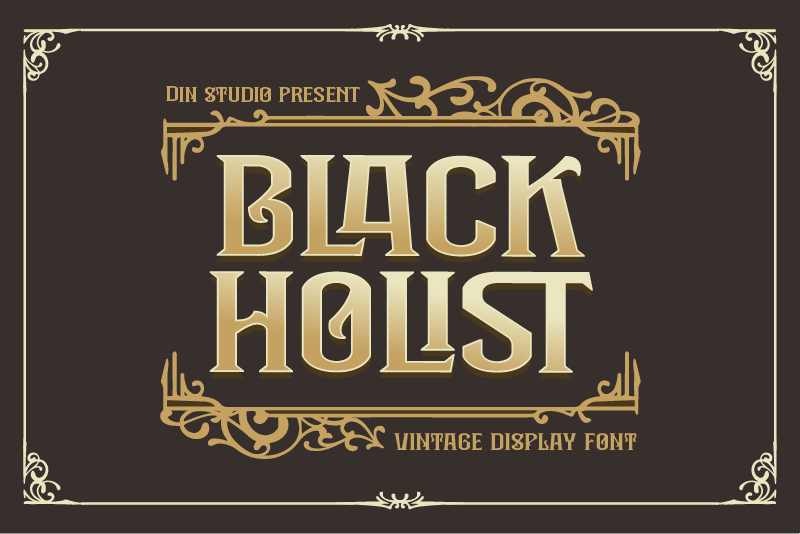
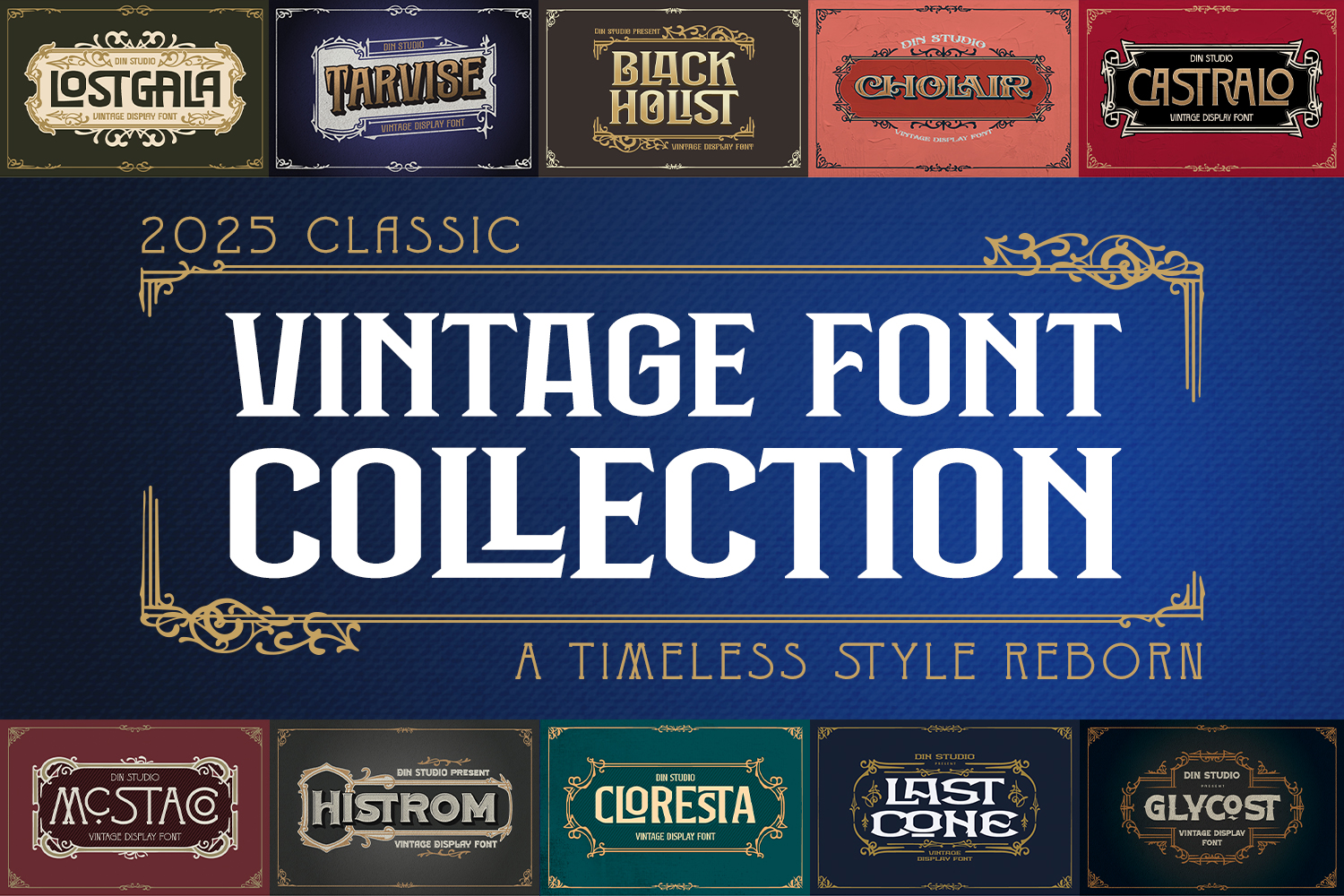
Trends in graphic design are subject to fluctuations. So, there comes a moment when specific trends resurface. One of the standout trends is the classic vintage style. Classic vintage font collections are making a triumphant return, especially in the world of typography. Get ready for the exciting resurgence of this trend in 2025! Numerous designers, brands, and content creators embrace this classic style for its unique appeal, genuine essence, and enduring allure.
In this era of minimalist design domination, this classic vintage font collection of ours offers something different: warm, nostalgic, and strong visual character. This is why these letters are becoming more popular; they stand out and leave a lasting impression.
The widespread vintage trend in fashion, music, and social media is now driving the increasing popularity of classic style. Moreover, access to various collections of vintage fonts is now much easier. It’s no surprise that classic vintage fonts have become the top choice for designers who want to create works that are characterful, classic, and still relevant.
Classic vintage fonts first became popular in the 19th century, especially in posters, advertisements, and print media with bold and decorative lettering styles. The development of modern design overshadowed this trend, but an interest in nostalgic elements has driven its resurgence since the early 2010s.
Starting with product branding, poster designs, and fashion logos, a classic vintage font can have a timeless visual appeal. So, if you want your design to exude an authentic vintage touch, then you might need to consider exploring this style.
In this article, you will find the complete explanation of the rebirth of the classic vintage font trend, along with its review and best font recommendation for your creative needs.
Firstly, let’s talk about Black Holist. This typeface is the best solution for designers who want a thick, neat, classic vintage font. Designed in a capital format with balanced proportion, Black Holist has a great readability that is adaptable in various sizes. Because of its optimal readability, this font is ideal for logo design, ad posters, product packaging, or headlines.
In addition to its aesthetics, Black Holist also includes features such as ligatures, alternative styles for visual variation, and multilingual support. This ensures your work looks livelier and more professional.
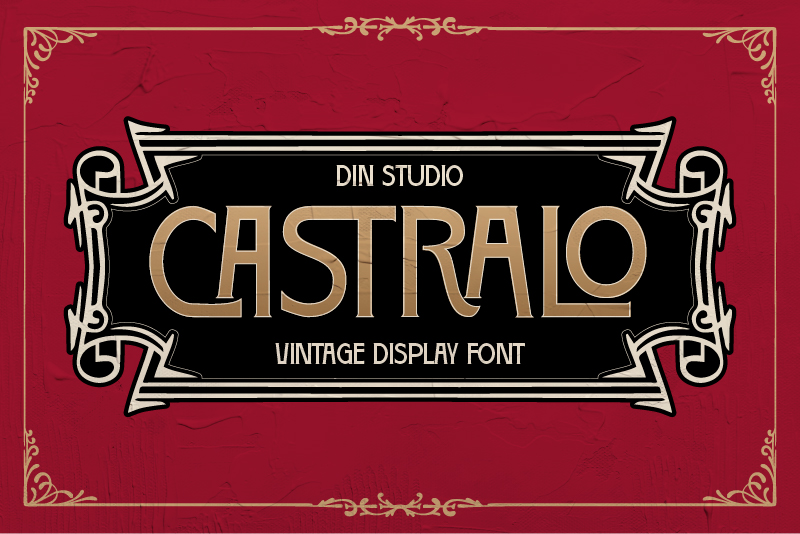
Next, we have Castralo, a classic vintage font with an elegant and modern look. It features an uppercase format with balanced thickness, ensuring a stable and professional look in a design. Castralo is ideal for many design projects that require neatness, such as logos, posters, titles, and packaging.
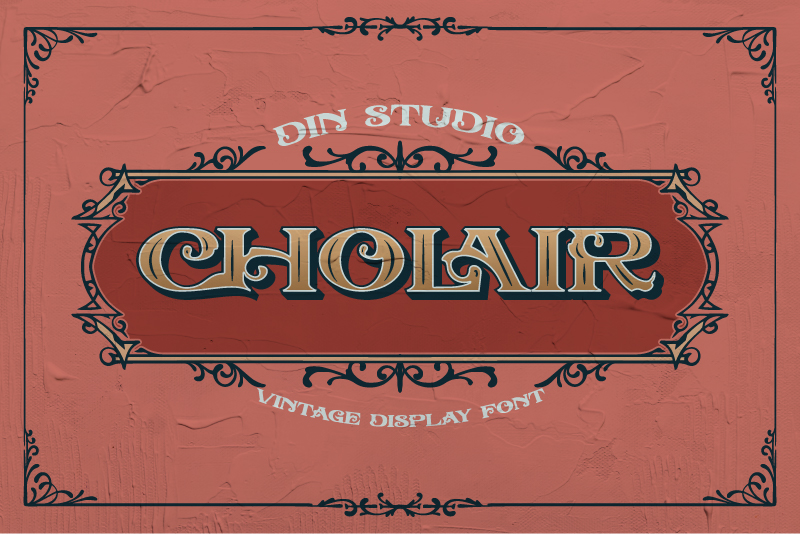
Cholair embodies the essence of classic vintage typography, featuring a bold and robust Victorian-style character, all while incorporating a sleek and sophisticated modern flair. This font is the ideal choice for titles, logos, posters, and branding that aim to create a bold statement with an elegant and sophisticated flair. The steady application of capital letters ensures that Cholair stands out with a bold and unmistakable presence.
Additionally, Cholair features ligatures, stylistic alternates, multilingual support, and both inline and extrude options. As a result, you can transform your designs with stunning shadow and three-dimensional effects that captivate and engage.
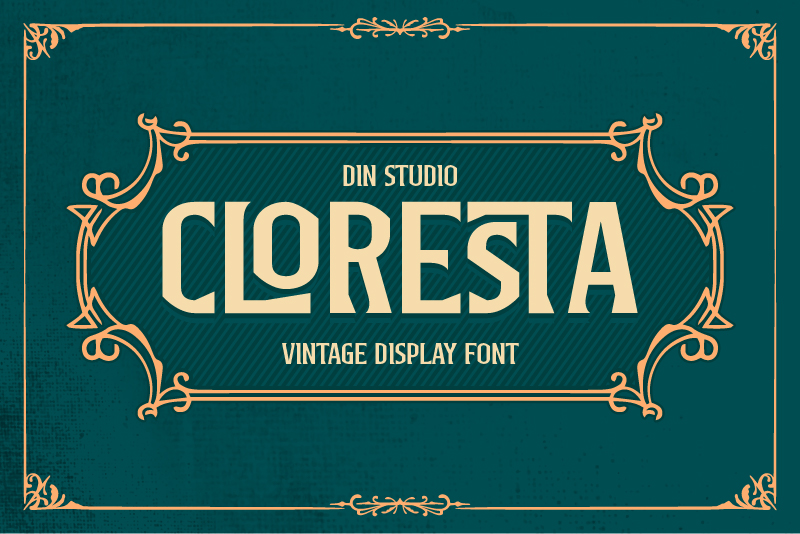
Cloresta effortlessly merges a classic vintage font style with a contemporary flair, showcasing its robust, well-proportioned capital letters. The letterform boasts a unique square shape, featuring subtly diagonal edges that enhance its distinctiveness, all while exuding a strong, elegant, and clean structure. The design’s consistency positions Cloresta as the perfect choice for various creative applications, from logos and posters to product packaging and editorial layouts.
Furthermore, this font is packed with professional features such as ligatures and multilingual support, making it incredibly versatile for designers. It allows for creative freedom while achieving a timeless yet contemporary aesthetic.
Glycost is another classic vintage font with a capital format; however, it has rounded edges that give a robust impression, reminding us of the Wild West era. The design is complete with decorative details, making it stand out among others.
Let’s not forget that Glycost offers various ligatures, alternates, and multilingual support. Furthermore, it has an inline and extruded format, resulting in a shadow and appealing 3D effect. Glycost is suitable for creating logos, posters, packaging, and editorial headlines.
Histrom introduces a contemporary take on a timeless vintage. The striking capital letters, defined by their sharp angles, leave a powerful, timeless impression brimming with character. Beyond its stunning design, Histrom provides extrude, engrave, and inline options that enhance the visual appeal and introduce distinctive texture to the overall look.
This font boasts a range of features, including alternative letter styles, ligatures, and multilingual support, ensuring seamless integration into diverse design projects like titles, logos, posters, branding, packaging, and editorial work.
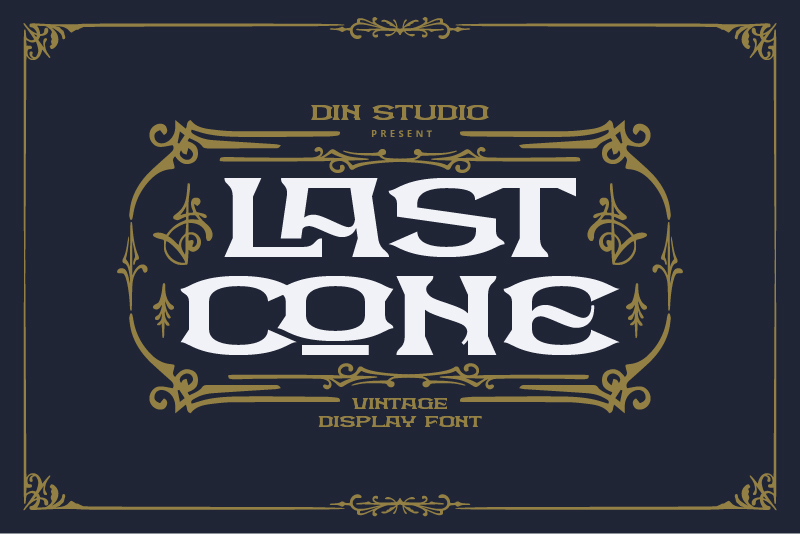
Link of font demo: Click Here
Lastcone presents an expanded capital letter style combined with a harmonious thickness proportion. As a result, the display looks sleek, consistent, and easily memorable. It has a strong yet friendly structure, ideal for many design projects like logos, posters, branding, and headlines. This classic vintage font boasts features like ligatures, alternative styles, and multilingual support, making it highly adaptable for various media.
Link of font demo: Click Here
Lostgala is a bold display font that combines a modern touch with a traditional vintage look. For designs that wish to stand out and look professional, the square capital letter shapes with sharp angles make a powerful and accurate impression.
The font offers features like ligatures, alternate styles, and multilingual support, along with extra ornaments that enhance its appearance. This font is ideal for a wide range of creative purposes, including branding items that need to make a strong and unique impression, packaging, posters, and logos.
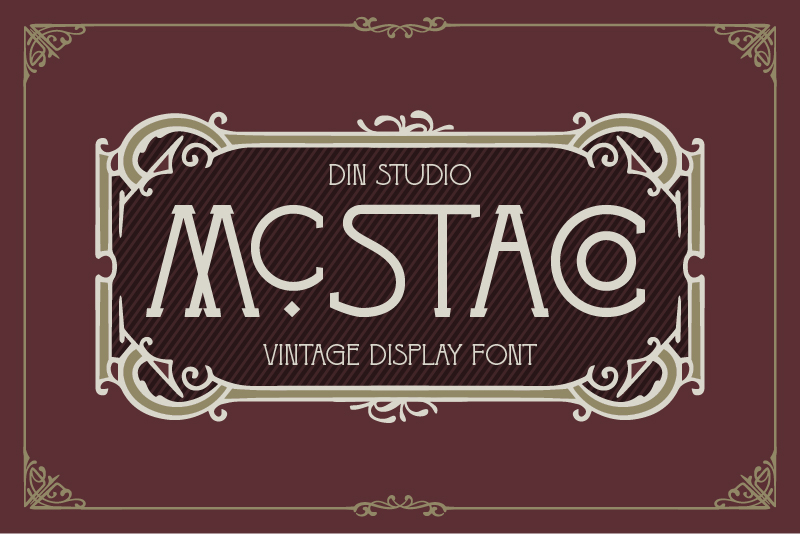
Link of font demo: Click Here
Next on the list is Mcstaco. Mcstaco offers a classic vintage font with thin, rounded uppercase letters, creating an elegant and clean impression. Despite its classic design, it remains relevant for a variety of modern design requirements.
With ligatures, alternative letter styles, multilingual support, and supporting ornaments, Mcstaco is suitable for titles, logos, posters, and editorial layouts that prioritize aesthetics and functionality.
Link of font demo: Click Here
Last but not least, we have Tarvise. This classic vintage font offers thick capital letters with consistent shape. The design makes it look sturdy and classy. There are two versions of this font: Regular and Extrude. As a result, Tarvise enables us to add dimensions and depths that are captivating. Moreover, this font is complete with various ligatures, alternates, and multilingual support, ideal choice for titles, logos, posters, and more.
In conclusion, 2025 will see audiences captivated by the resurgence of classic vintage fonts. These vintage-themed fonts not only enhance the appeal and professionalism of various design projects but also radiate elegance and unique character. Utilizing a classic vintage font in branding, print, or digital media elevates your work and sets it apart from others. Discover these fonts, packed with remarkable features such as ligatures and multilingual support, empowering designers to stay ahead of the latest design trends.
Incorporating these fonts will craft a unique and enduring visual identity that stands out in your design. So, don’t miss out on this classic vintage font collection that will elevate your creative projects to the next level.